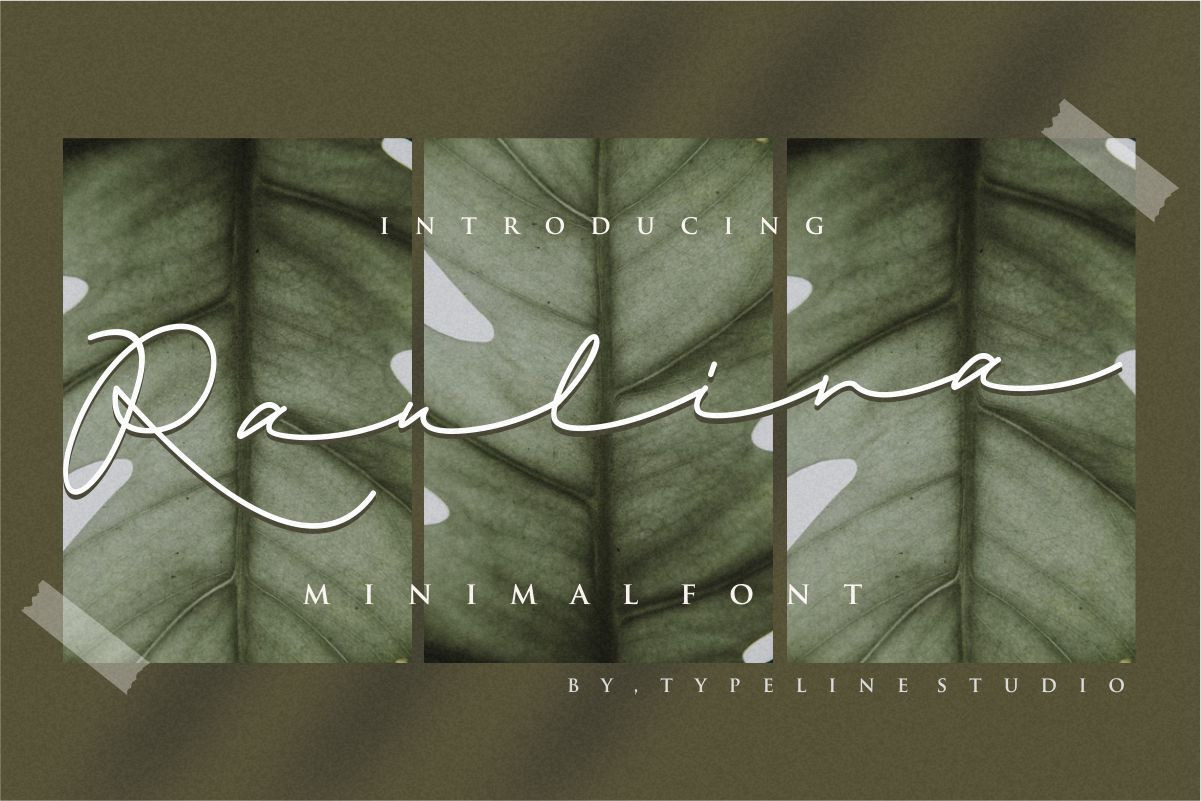
Raulina // Minimal font
Say Χαίρετε to hand letter raulina-inspired handwritten Signature font Raulina.
I have been wanting to make project fonts in handwriting or signature, and today I introduced the newest font called Raulina, Raulina is a handwritten font with a long tail like a written text for a loved one in the past. Raulina is very well suited for projects,youtube project,lyric font,instagram font, signatures font, quotes, wedding invitations, branding, logos, magazines, titles, and other project projects.this font very luxury and minimalist.